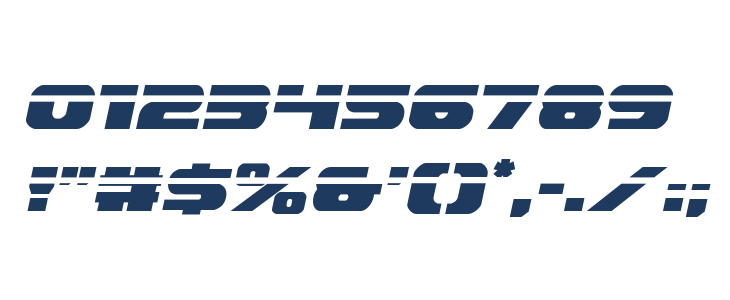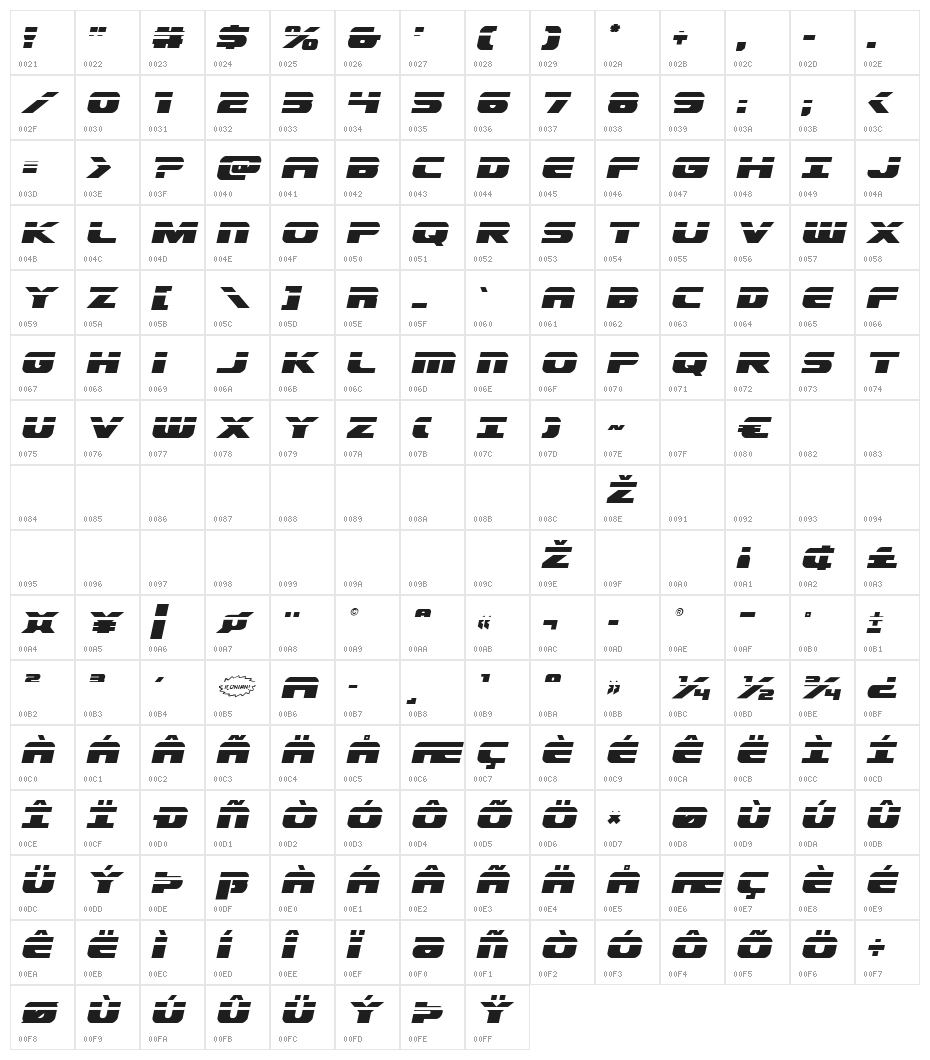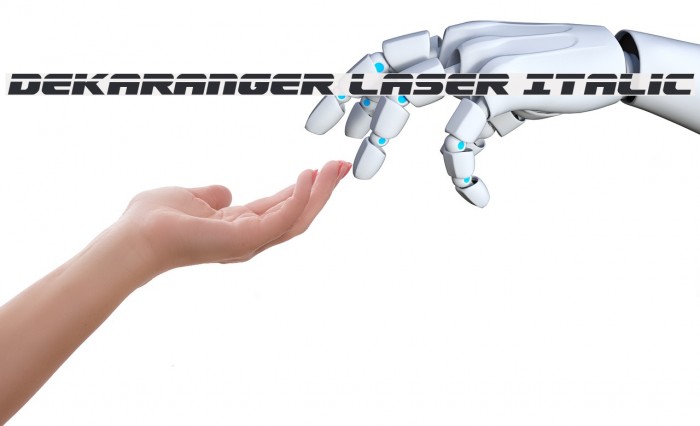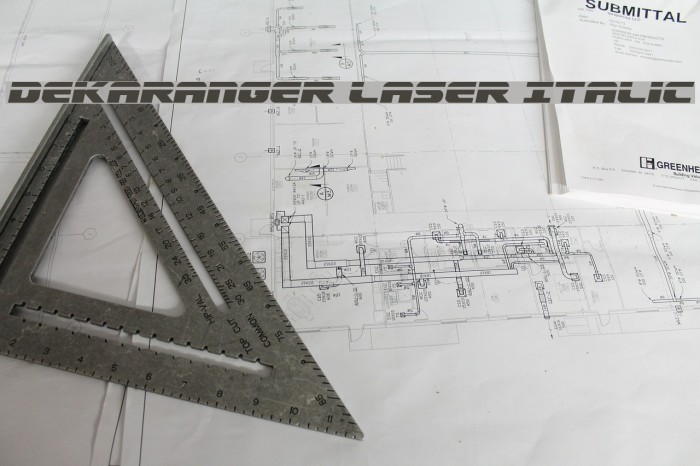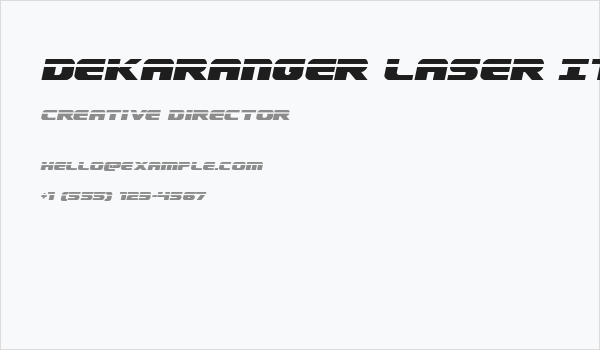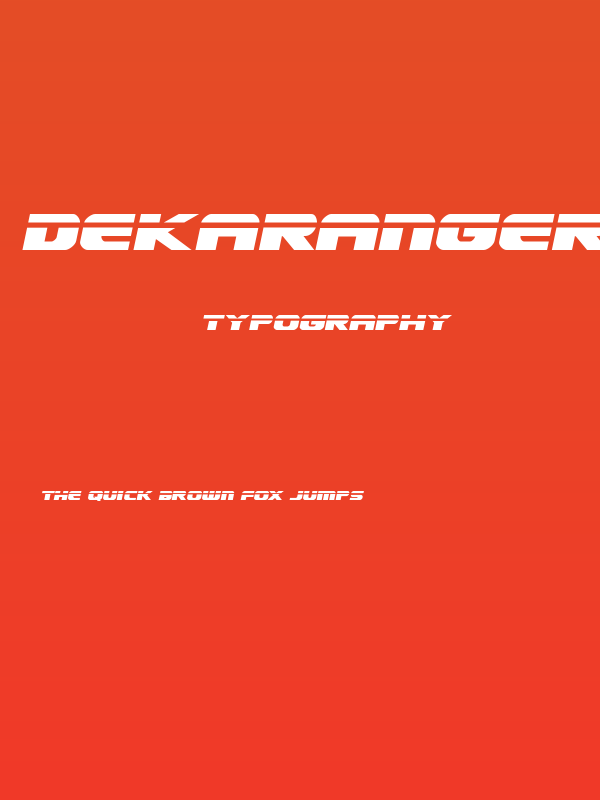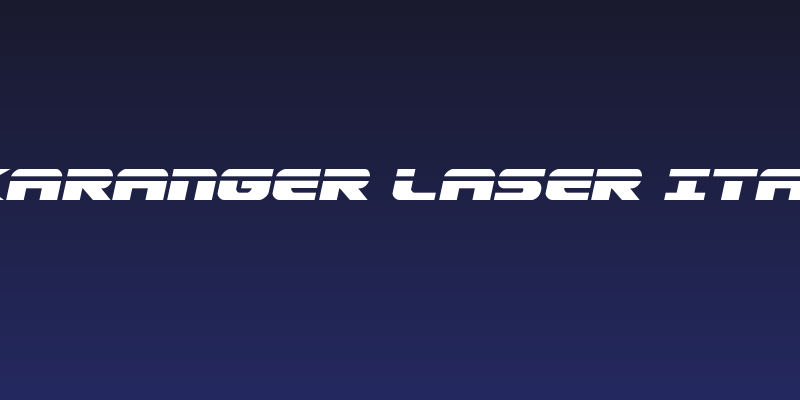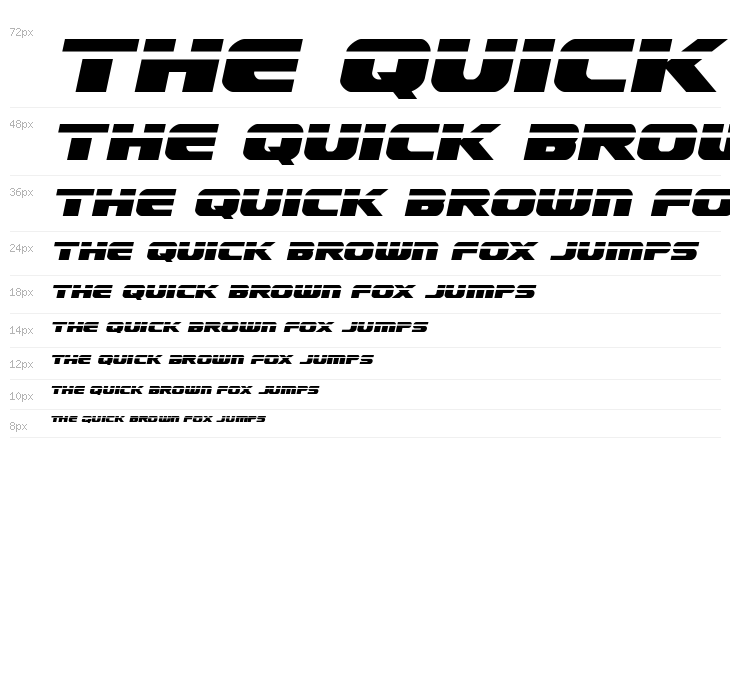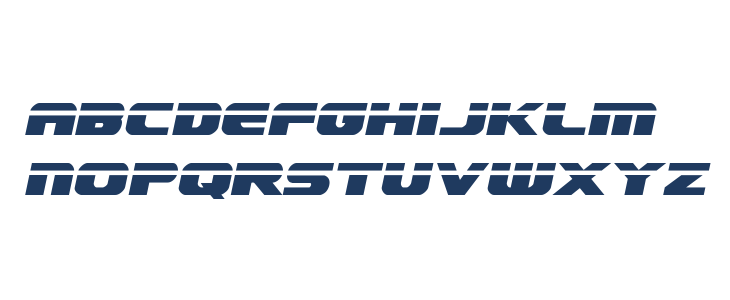
Dekaranger Laser Italic Font
Dekaranger Laser Italic Description
This font features a bold, futuristic design with a distinct italic slant, giving it a dynamic and energetic appearance. The characters are constructed with sharp angles and geometric shapes, creating a sense of movement and speed. The uppercase and lowercase letters maintain a consistent style, with the uppercase being more prominent and the lowercase slightly more compact. Numbers and special characters follow the same design principles, ensuring uniformity across all glyphs. The font's unique style makes it stand out, ideal for projects that require a modern and edgy look.
| Proposed Projects | Ideal for sci-fi themed designs, video game titles, tech branding, and dynamic posters. |